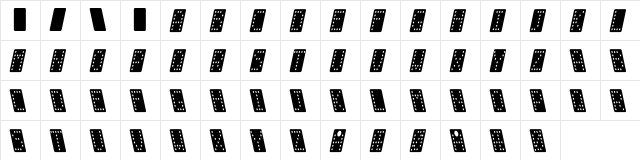
Domino smal kursiv Regular
Design Context for Domino smal kursiv Typeface
Domino smal kursiv is a composed and adaptable typeface that performs quietly and consistently across a wide range of design contexts. Its italic angle brings a sense of urgency and motion to the letterforms.
Pro Tip: Use Domino smal kursiv for emphasis, pull quotes, and subheadings where its slanted energy can add rhythm to the layout.